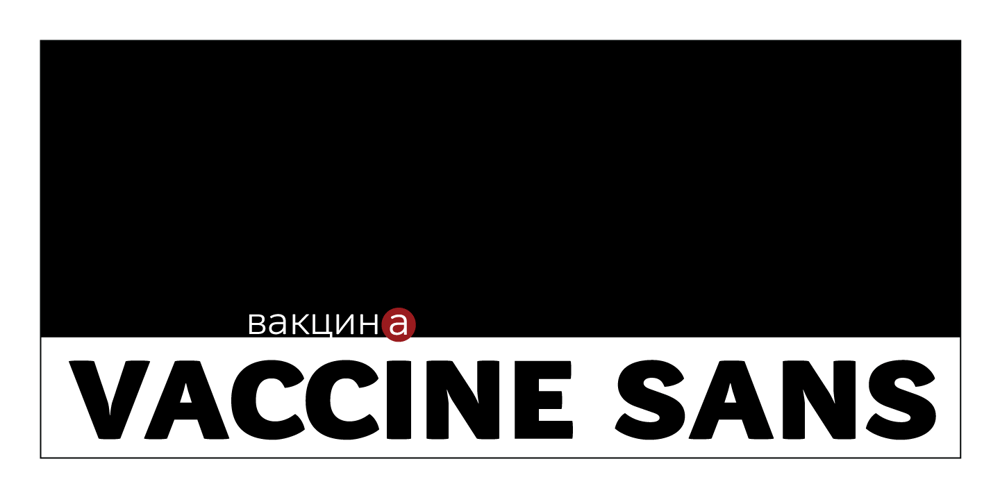
Vaccine Sans Font Family was designed by Manvel Shmavonyan and published by ParaType. Vaccine Sans contains 10 styles and family package options. Vaccine Sans is a humanist sans-serif font family with soft terminals, but stem junctions on the contrary use hard constructions. Such combination of basic design features makes the font distinct and strong in setting and delicate and soft in appearance. This design peculiarity, together with very low contrast, produces a range of qualities needed for small sizes, low quality print and bad reading conditions. Vaccine Sans has a modern stylish design and takes its rightful place among popular faces. The family consists of 10 members — five weights with the corresponding italics. It can be used in a wide range of applications — magazines, advertising, corporate identity, urban navigation, packaging, children books, etc. Designed by Manvel Shmavonyan with the participation of Alexandra Korolkova and Gayaneh Bagdasaryan.